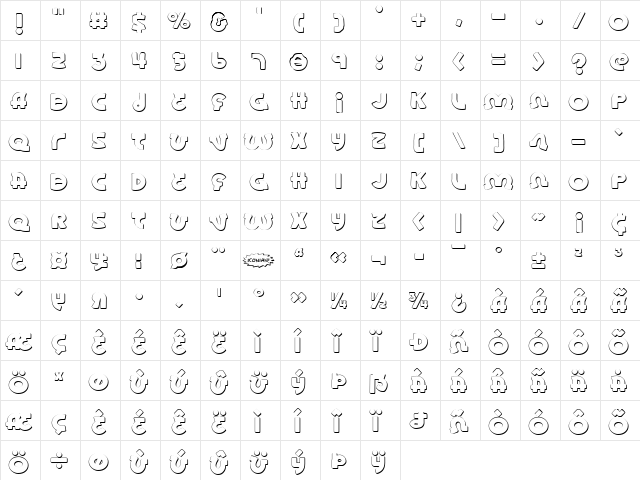
Lionel Shadow Regular
Design Context for Lionel Shadow Typeface
Lionel Shadow brings ornamental detail and strong personality to headlines and identities, where visual impact matters more than quiet functionality.
Font Pairing: Pair with a clean neutral sans-serif for body copy to let Lionel Shadow's character lead without overwhelming the composition.
Pro Tip: Use Lionel Shadow exclusively at display sizes — it was designed to be seen, not read at length. Let a neutral companion handle body copy.